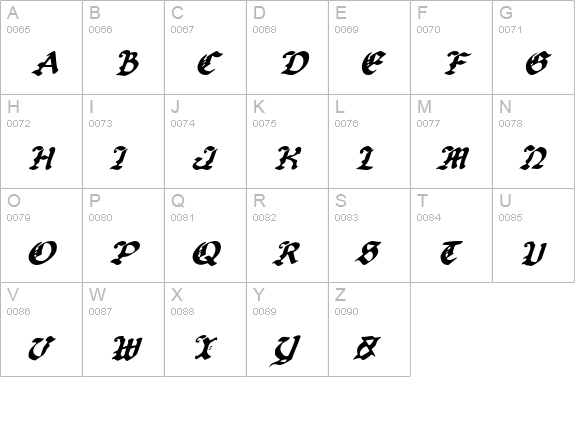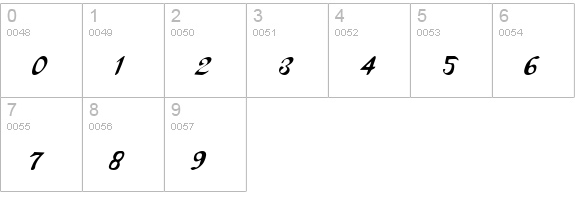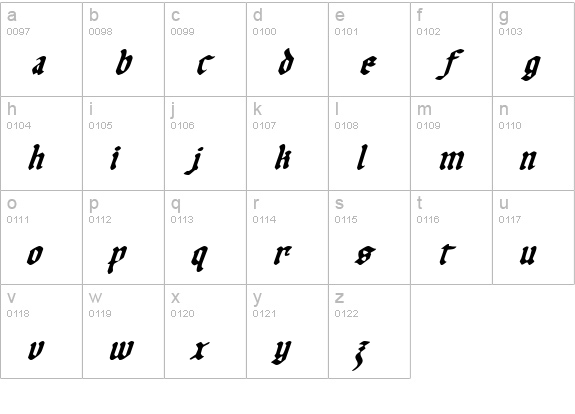
Uberhölme Italic Font Details
Uberhölme Italic is a distinctive, italic variant in the Uberhölme typeface family \xE2\x80\x94 well suited to design and typography projects.
Uberhölme Italic is a stunningly elegant and versatile font that exudes sophistication and style. Its tall and slender letterforms have a graceful slant, adding a touch of dynamic energy to any design. With its sleek lines and delicate curves, this font is perfect for creating eye-catching headlines, logos, and branding materials. One of the most remarkable aspects of Uberhölme Italic is that it is available for free download at FontsMarket.com. This means that designers and creative professionals can effortlessly access and utilize this beautiful font in their projects without any financial constraints. Whether you are a professional designer or a hobbyist, this font offers you the opportunity to add a touch of elegance and refinement to your work, without breaking the bank. Uberhölme Italic's distinctive and sophisticated design ensures that it stands out in any setting. Its versatility allows it to be used in a wide range of design applications, from print materials such as magazines, brochures, and invitations, to digital projects such as websites, social media graphics, and presentations. The font's legibility and readability make it ideal for both large display text and smaller body copy, ensuring that your message is delivered with clarity and impact. With its timeless elegance and freely available download at FontsMarket.com, Uberhölme Italic is an invaluable tool for designers who desire a font that effortlessly captures attention and elevates their creative projects. Embrace the beauty and versatility of Uberhölme Italic and watch your designs come to life with a touch of sophistication and charm.